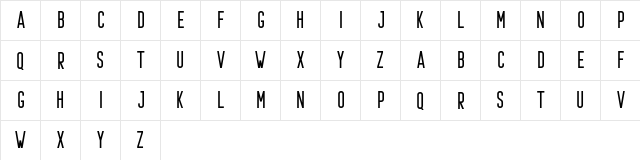
Prestage Regular
Design Context for Prestage Typeface
Prestage offers clean, dependable letterforms without strong stylistic allegiance, making it a practical choice for designers who need flexibility.
Pro Tip: Pair Prestage with a font of contrasting weight or personality to build a more expressive typographic hierarchy.